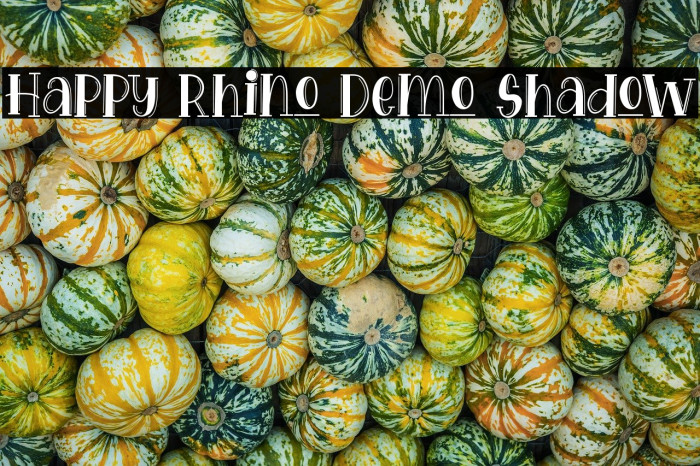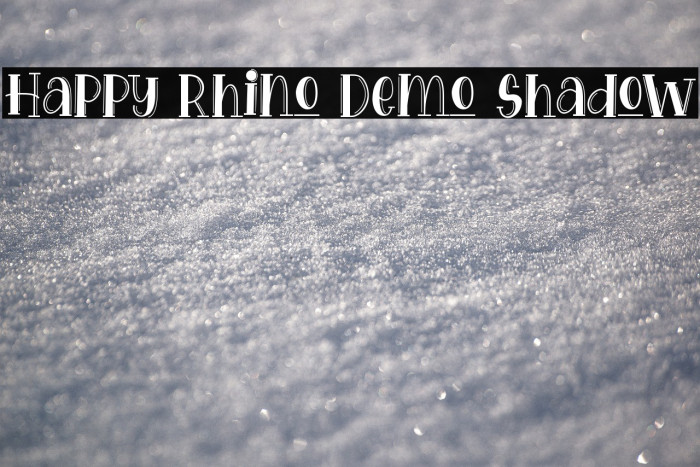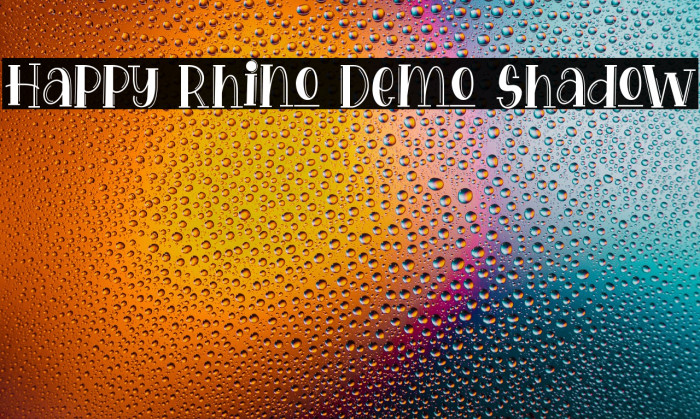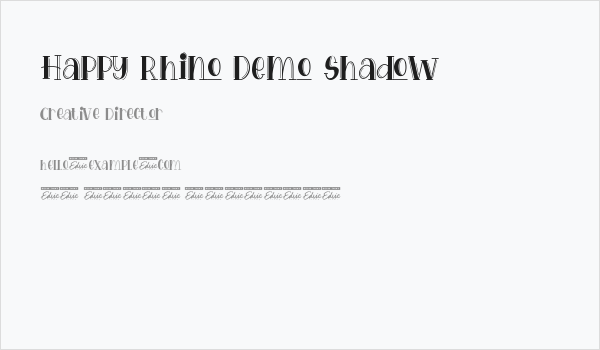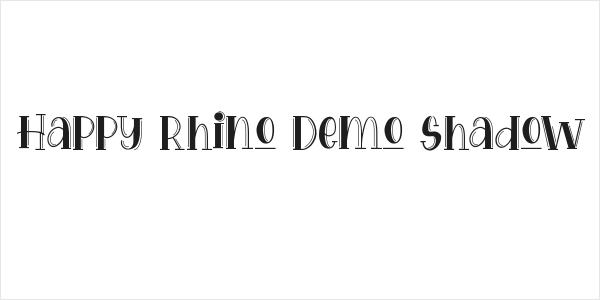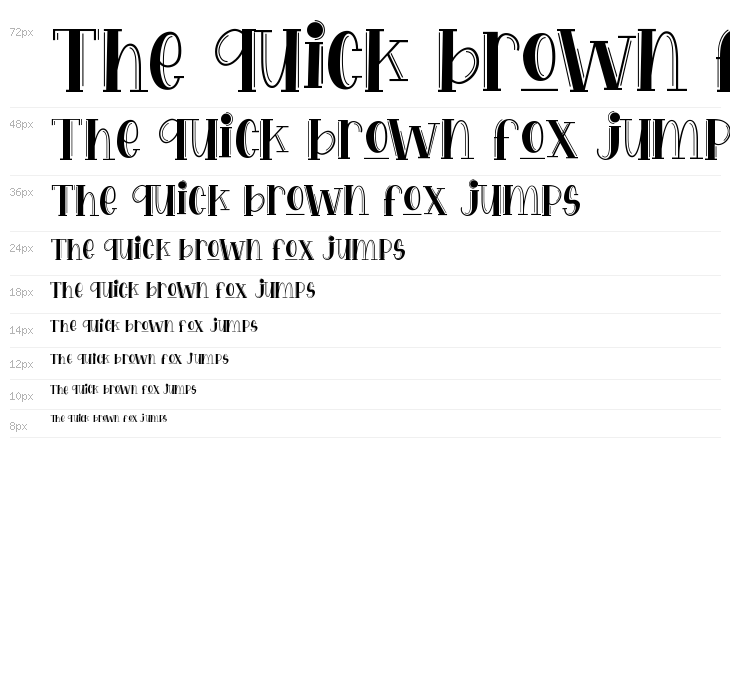
Happy Rhino Demo Shadow Font
Happy Rhino Demo Shadow Description
This font features a bold and playful design with a shadow effect that adds depth and dimension to each character. The uppercase letters have a strong presence, with a mix of straight lines and curves that create a dynamic look. The lowercase letters maintain the playful style, with unique shapes and a consistent shadow that enhances readability. The numbers and special characters follow the same design principles, ensuring a cohesive appearance across all text elements. This font is ideal for projects that require a fun and engaging visual impact.
| Overall Style | Playful, Modern |
| Proposed Projects | Perfect for children's books, playful branding, posters, and creative invitations. |